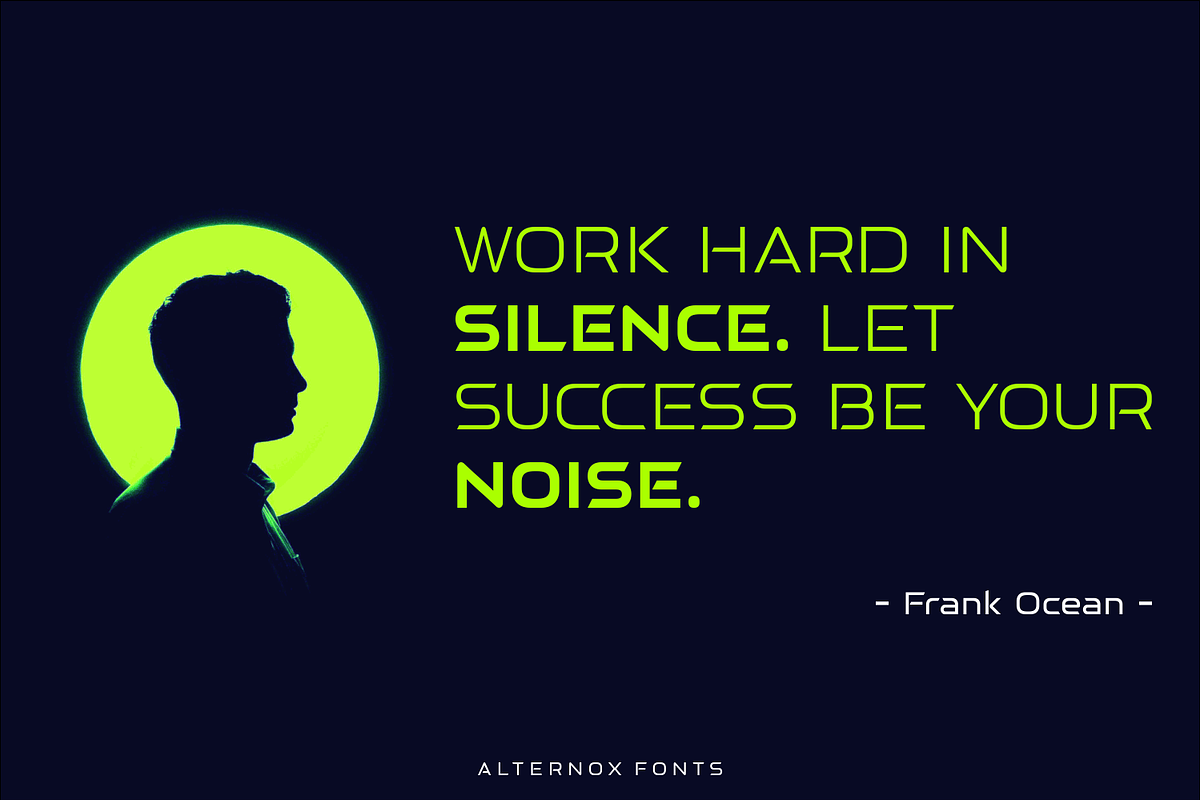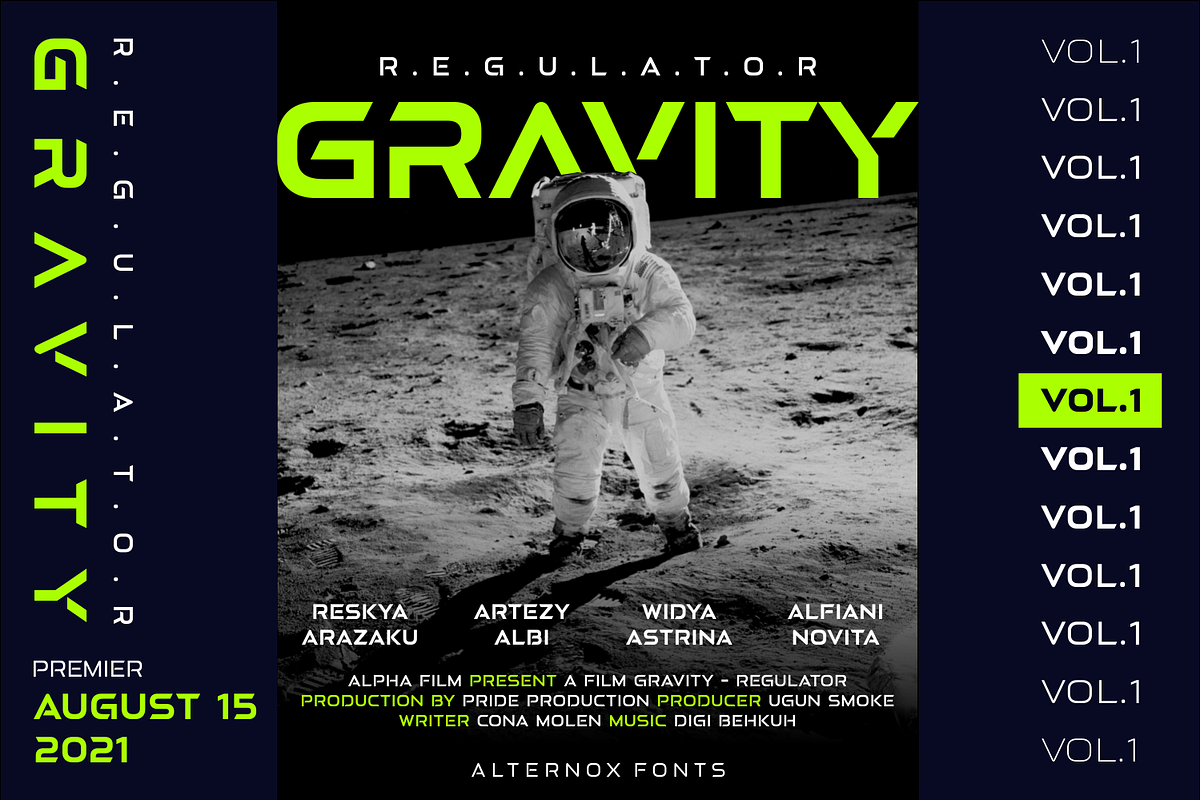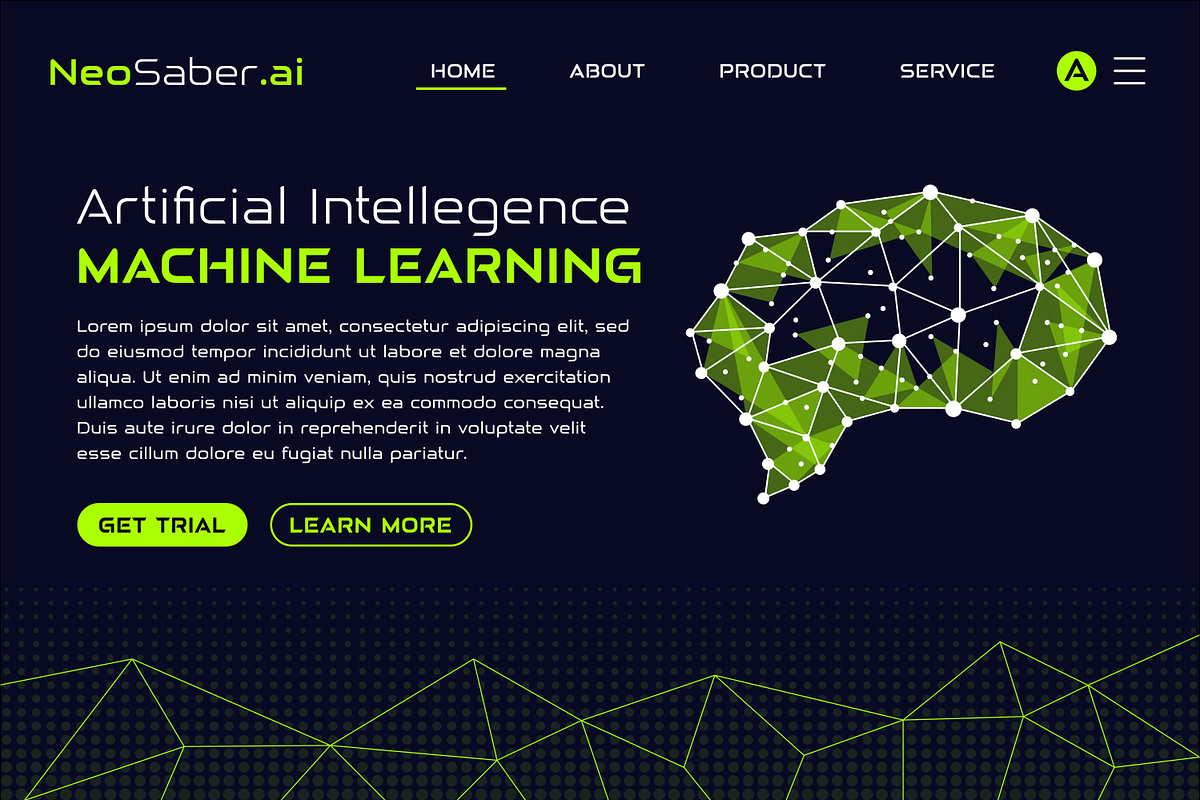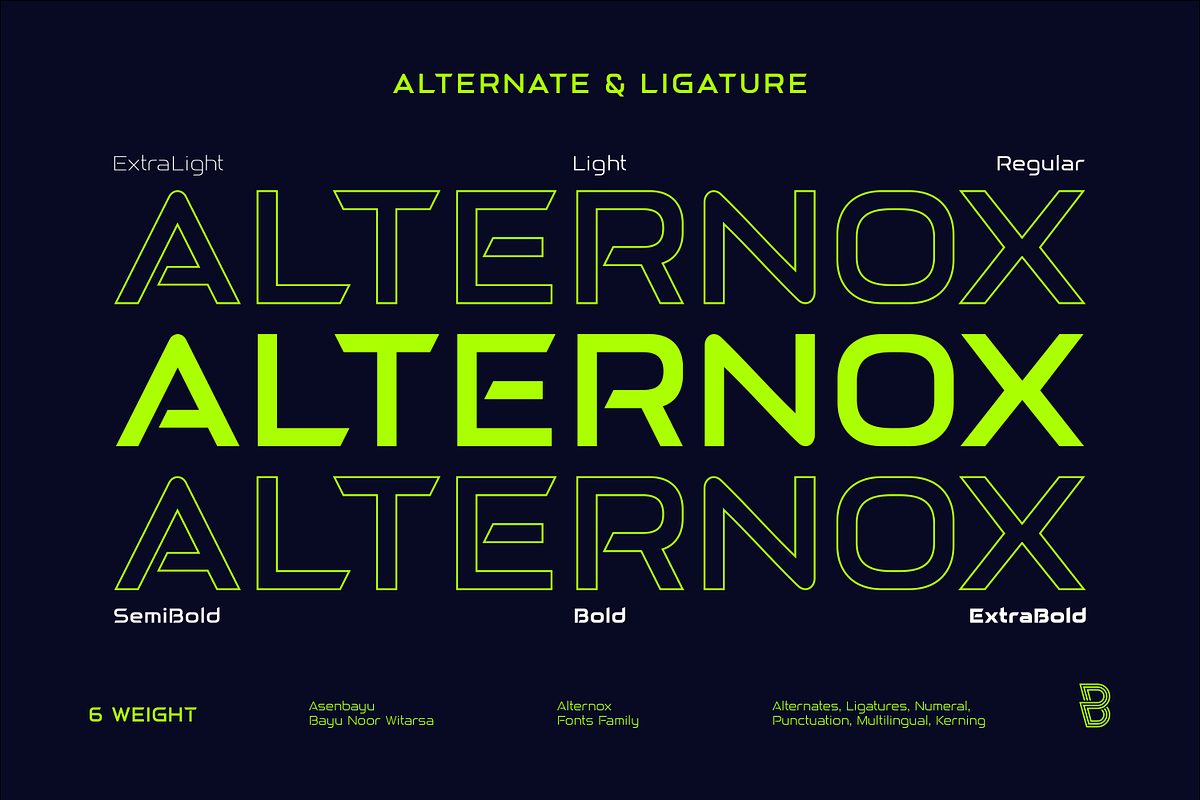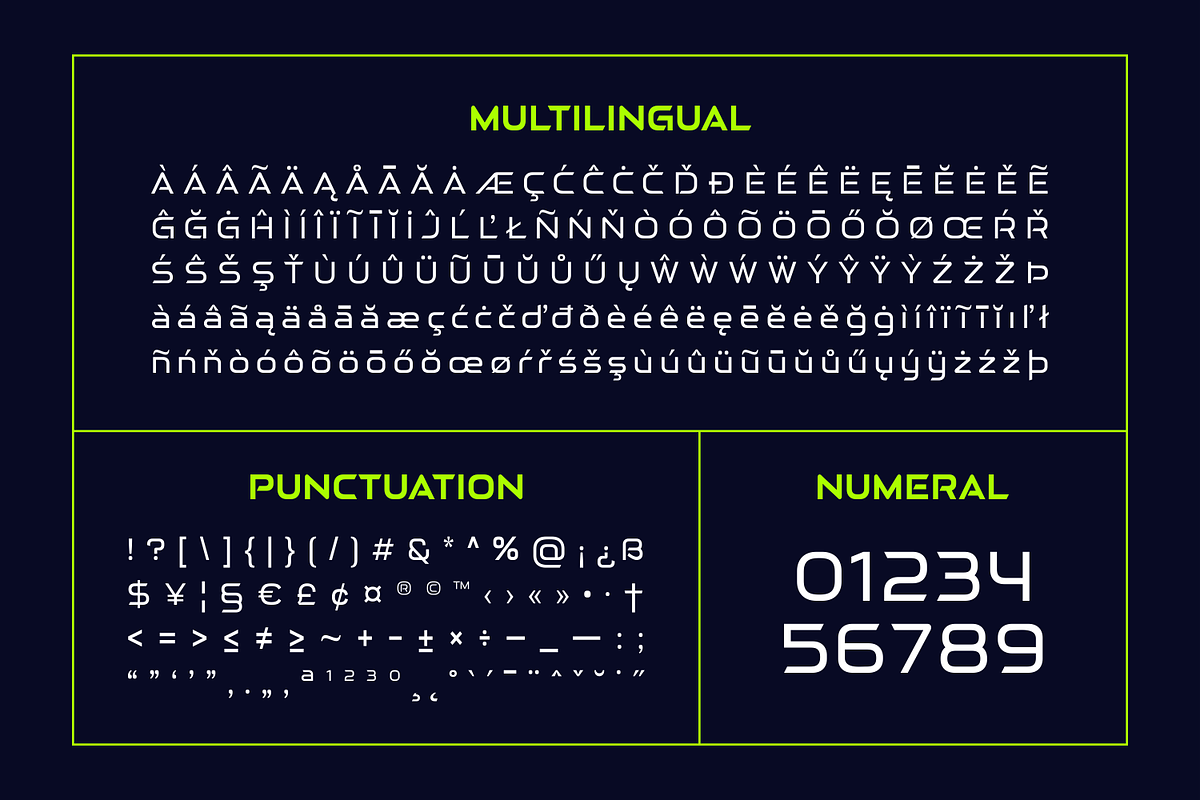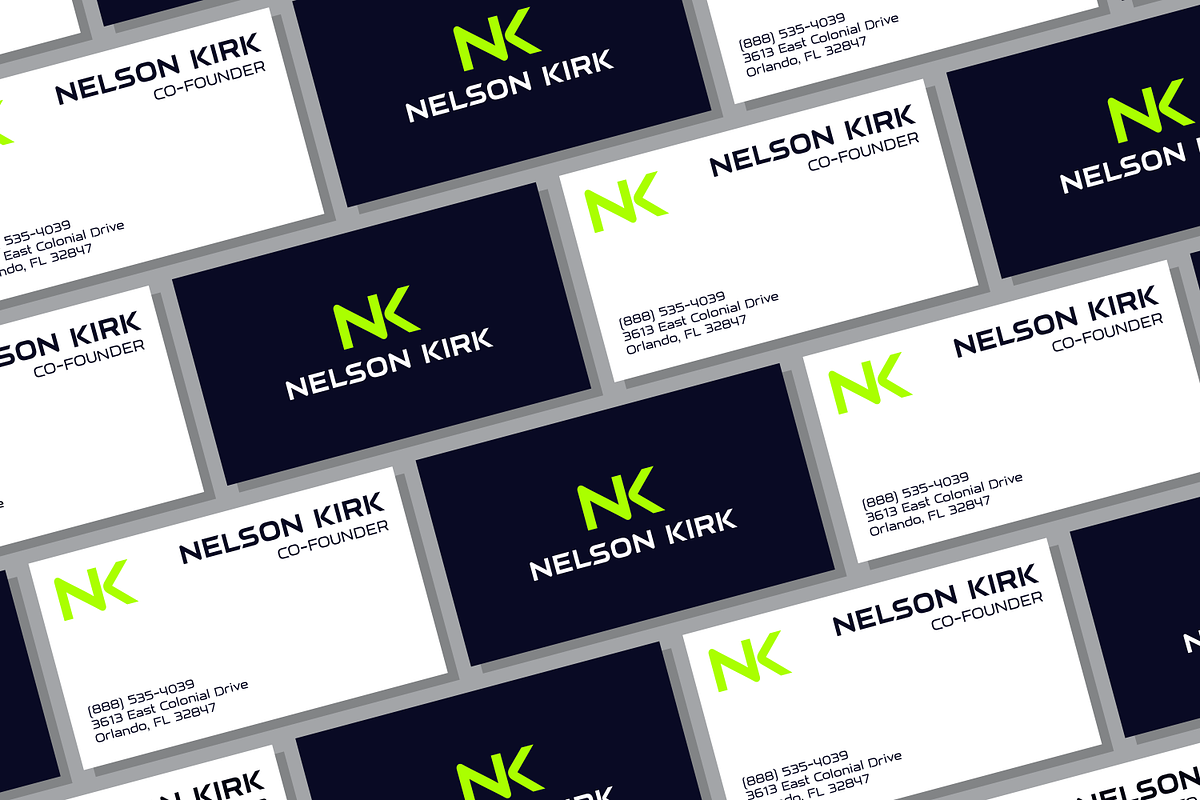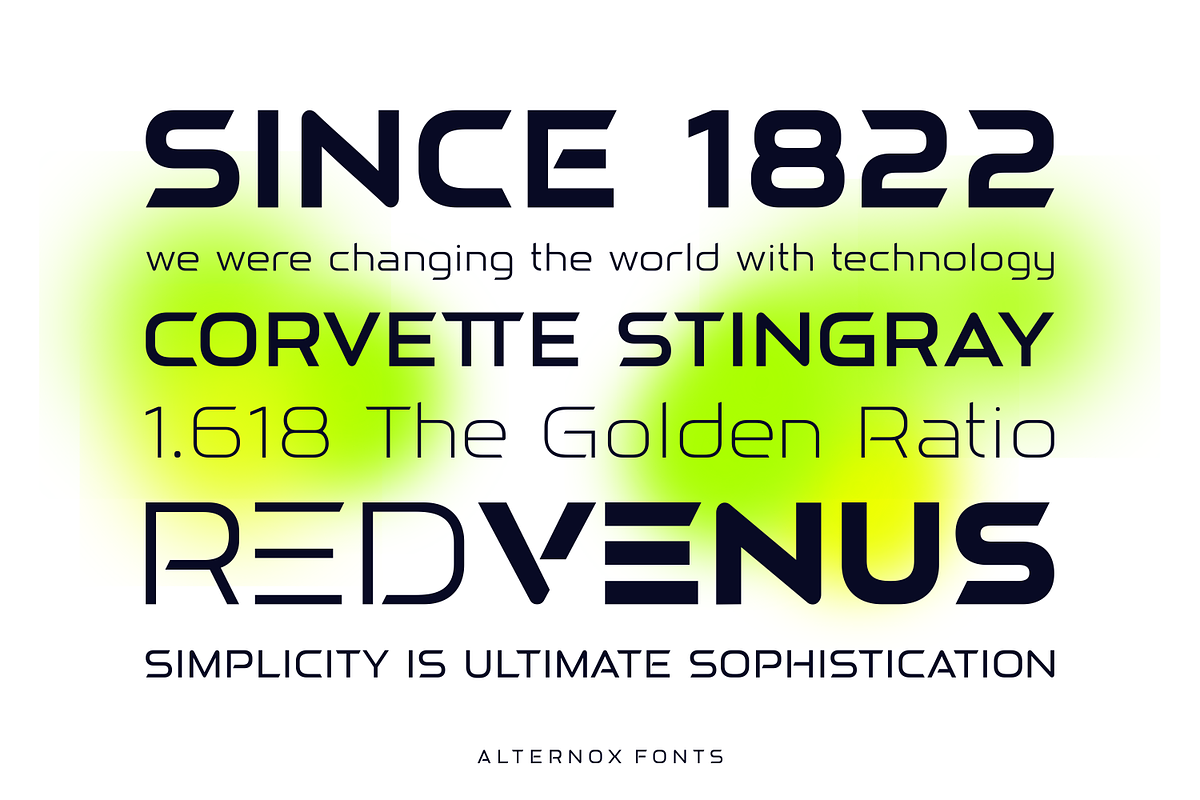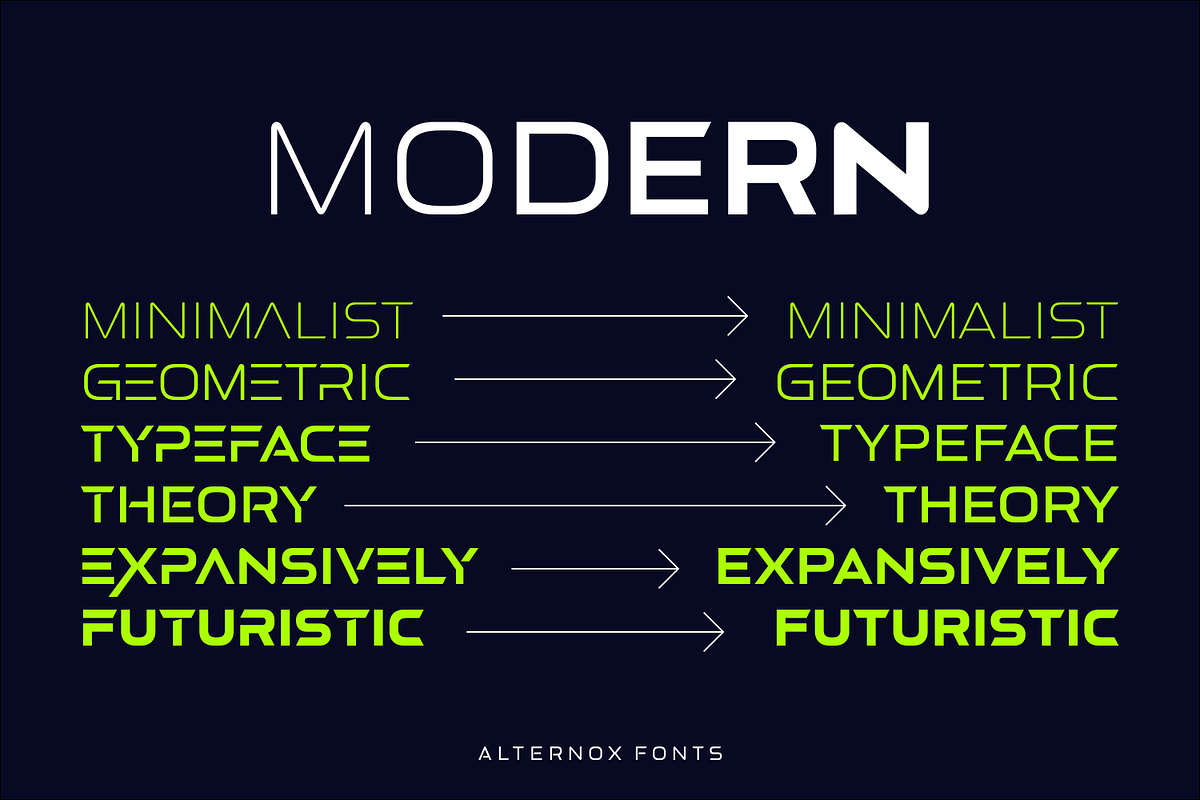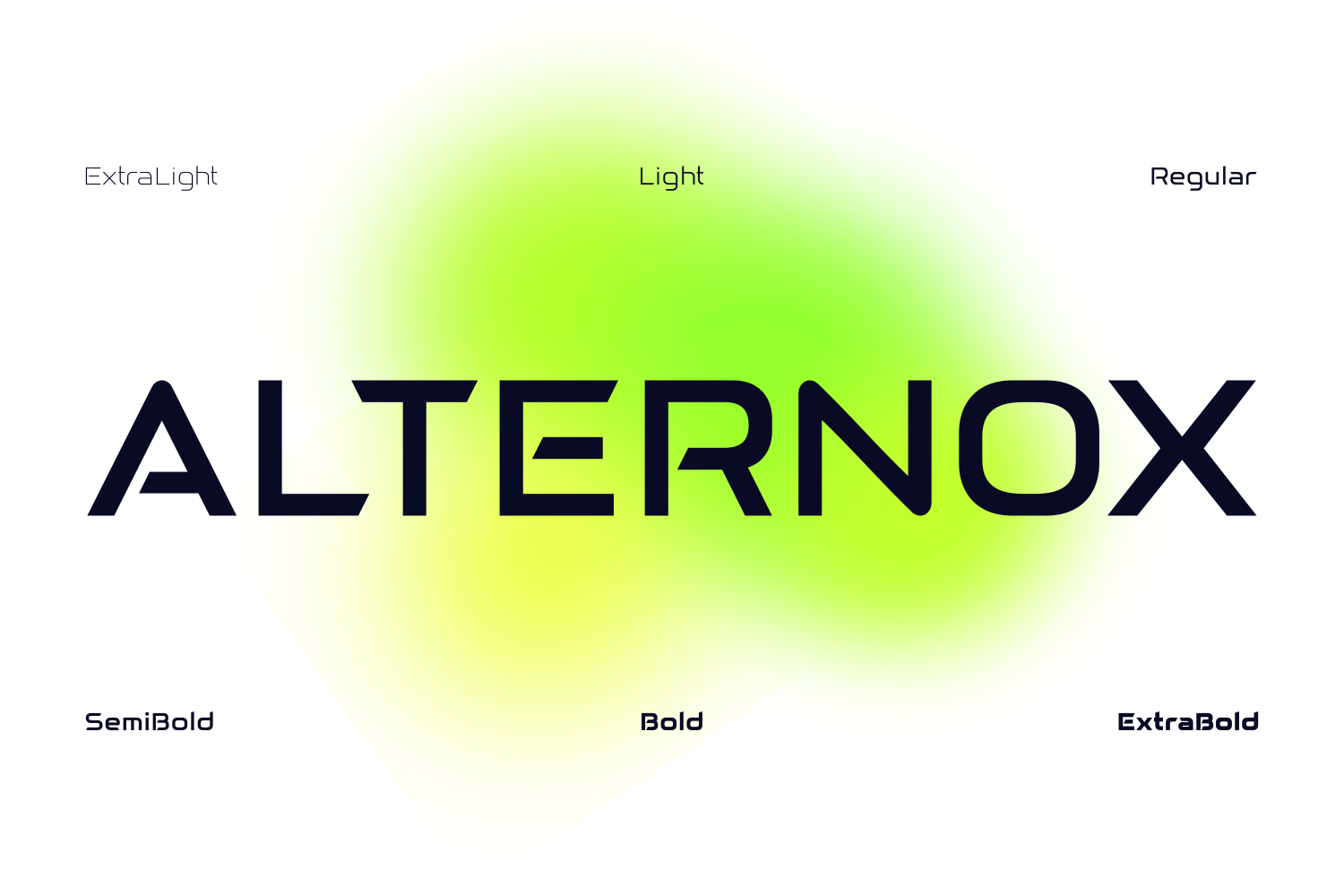
Alternox Fonts Famliy
Alternox fonts is a new futuristic multipurpose sans serif font family with sophisticated geometric shapes. You can use it in a modern, clean and professional design. This font is perfect for your various projects such as logos and brand identity, technology, business cards, web, stationery, displays, sports and more.
Alternox fonts feature opentype, kerning, ligatures and alternates packed in 6 fonts: ExtraLight, Light, Regular, SemiBold, Bold, and ExtraBold. Alternox fonts include uppercase letters, lowercase letters, numeral, punctuation and multilingual support.